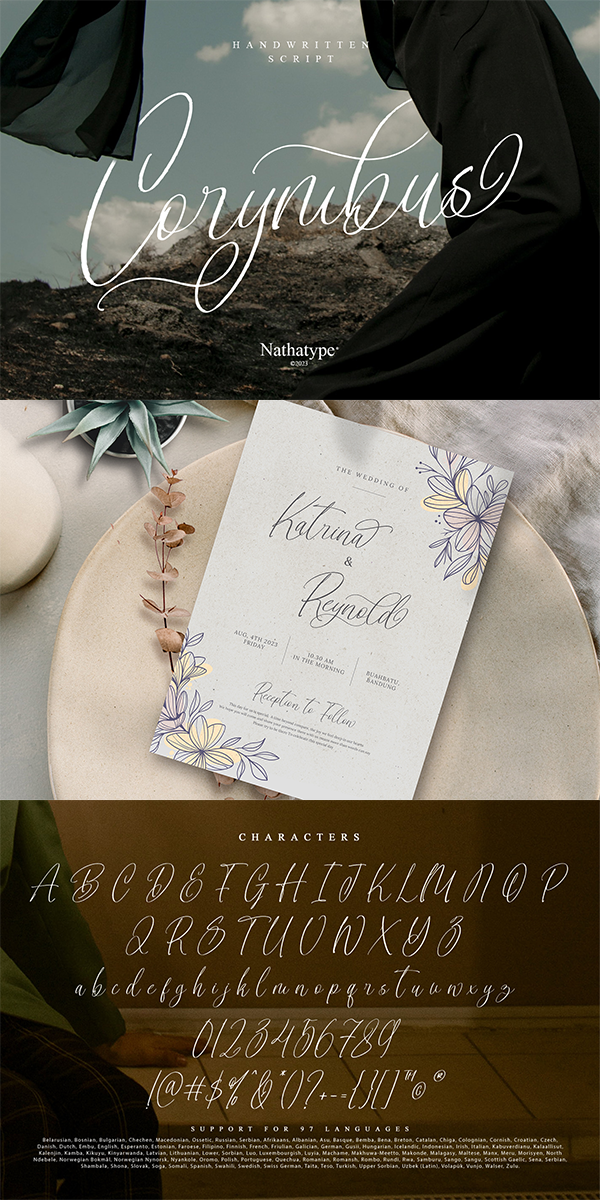
Corymbus Font
About Corymbus
Corymbus, a script font that effortlessly captures the essence of human handwriting. The interplay between thick and thin lines creates a visual feast for the eyes, showcasing the intricacies of each character. The whimsical irregularity mirrors the fluidity of genuine handwriting. The distinctive hallmark of Corymbus lies in its swinging endings-each letter playfully extends beyond its baseline, creating a sense of rhythm and movement. This dynamic quality adds a touch of spontaneity to formal compositions and a sense of joy to casual designs. For the best legibility use this font in the bigger text sizes. Enjoy the features here.
Corymbus fits in headlines, logos, posters, flyers, invitations, name cards, branding materials, print media, editorial layouts, and many more. Find out more ways to use this font by taking a look at the font preview.